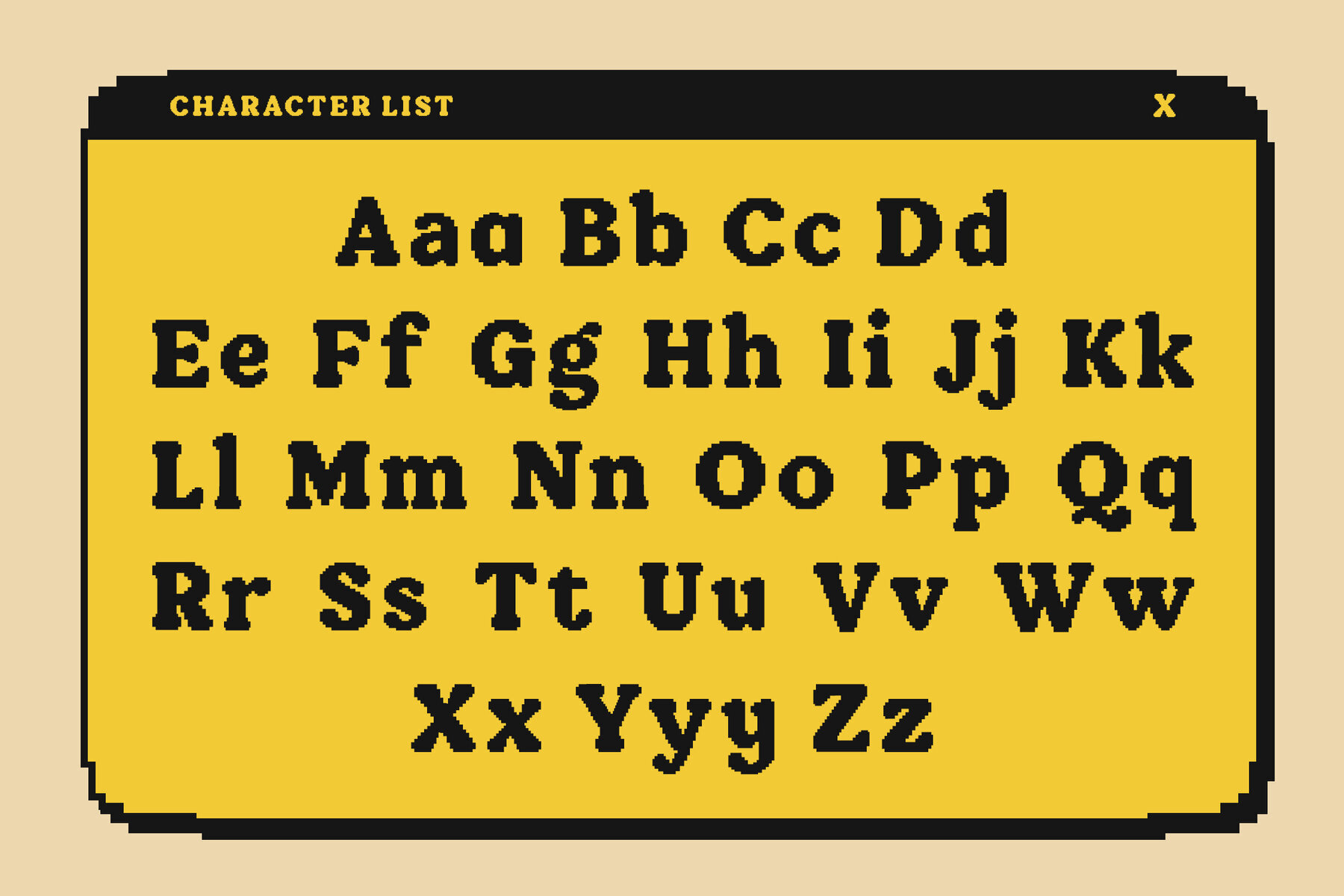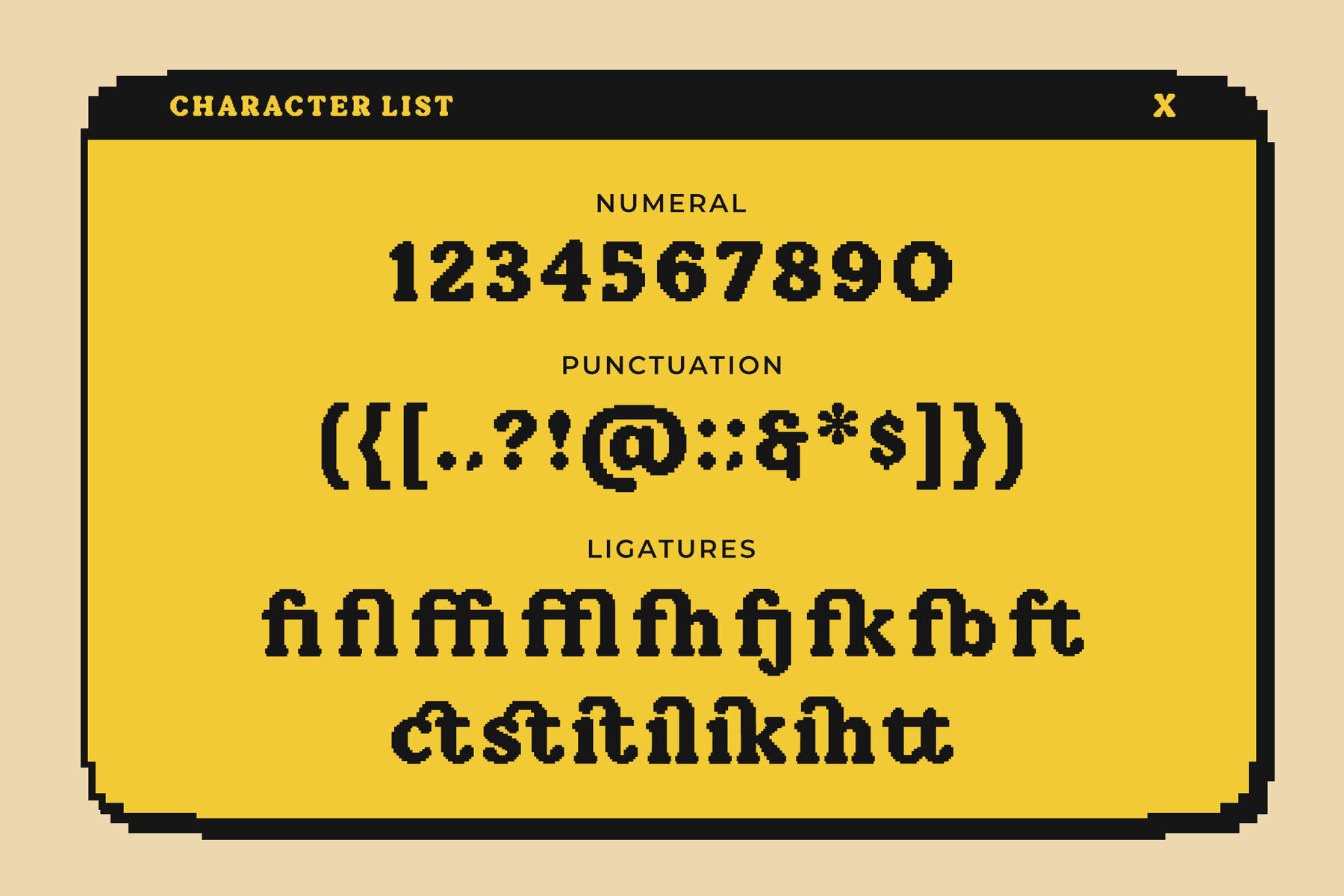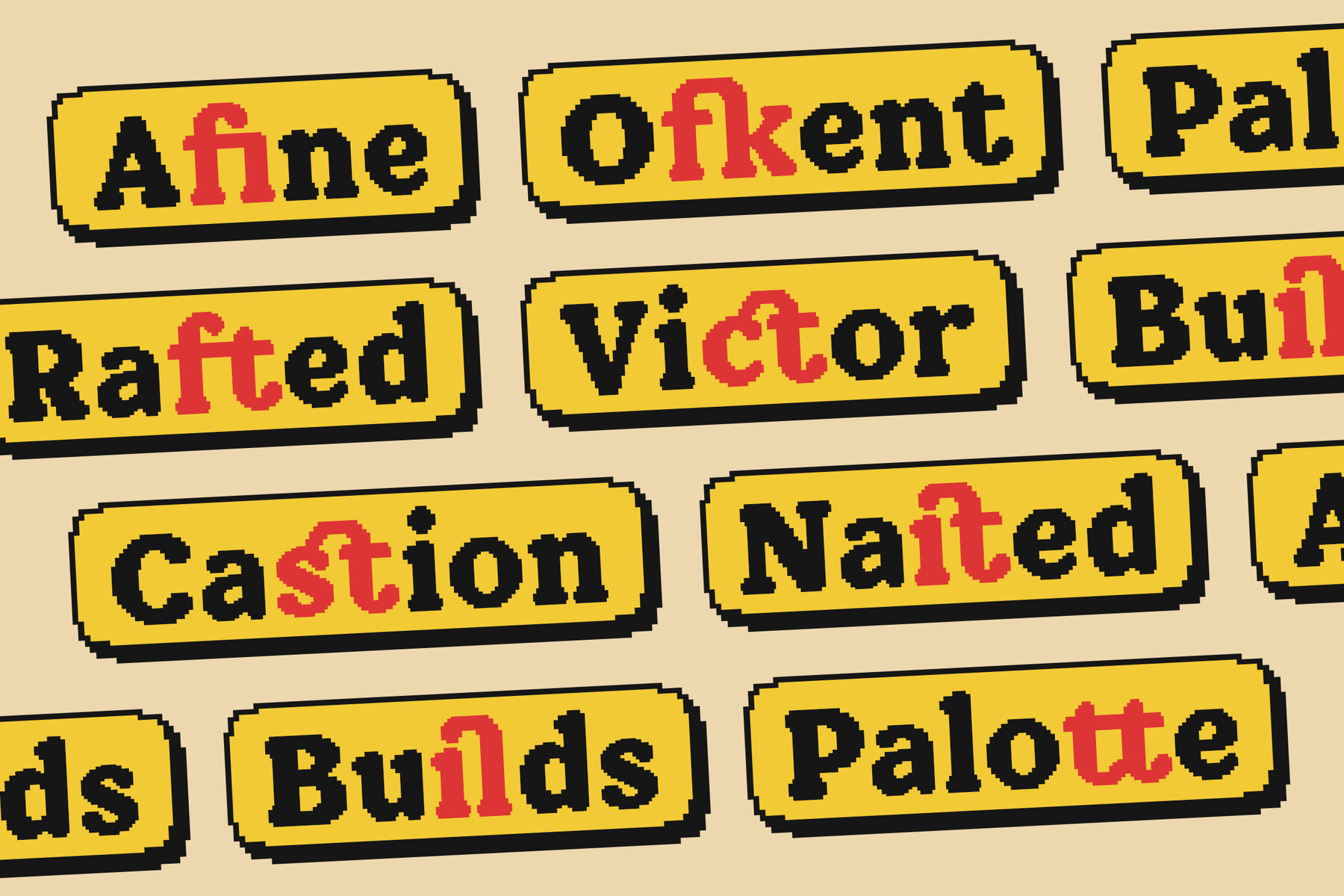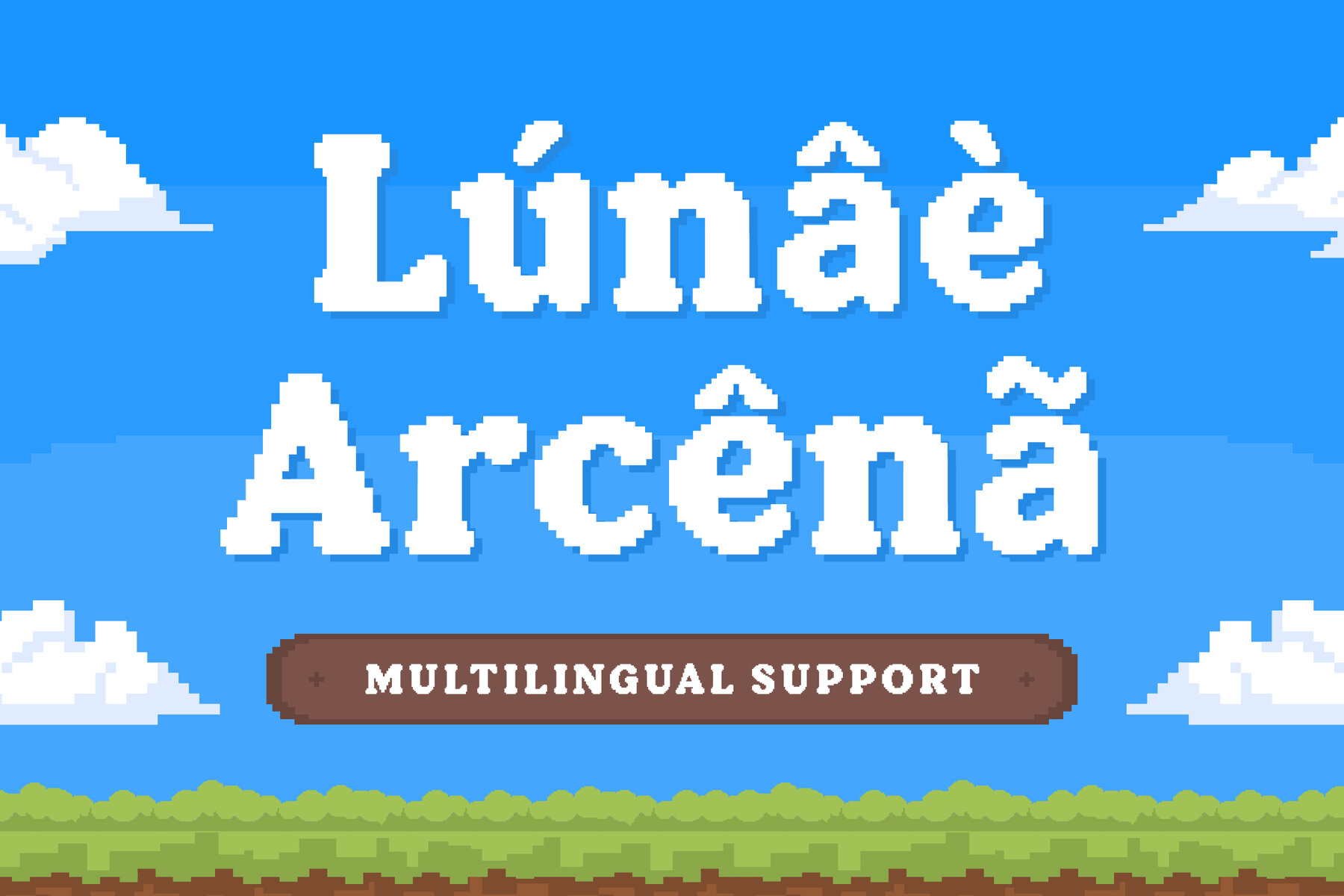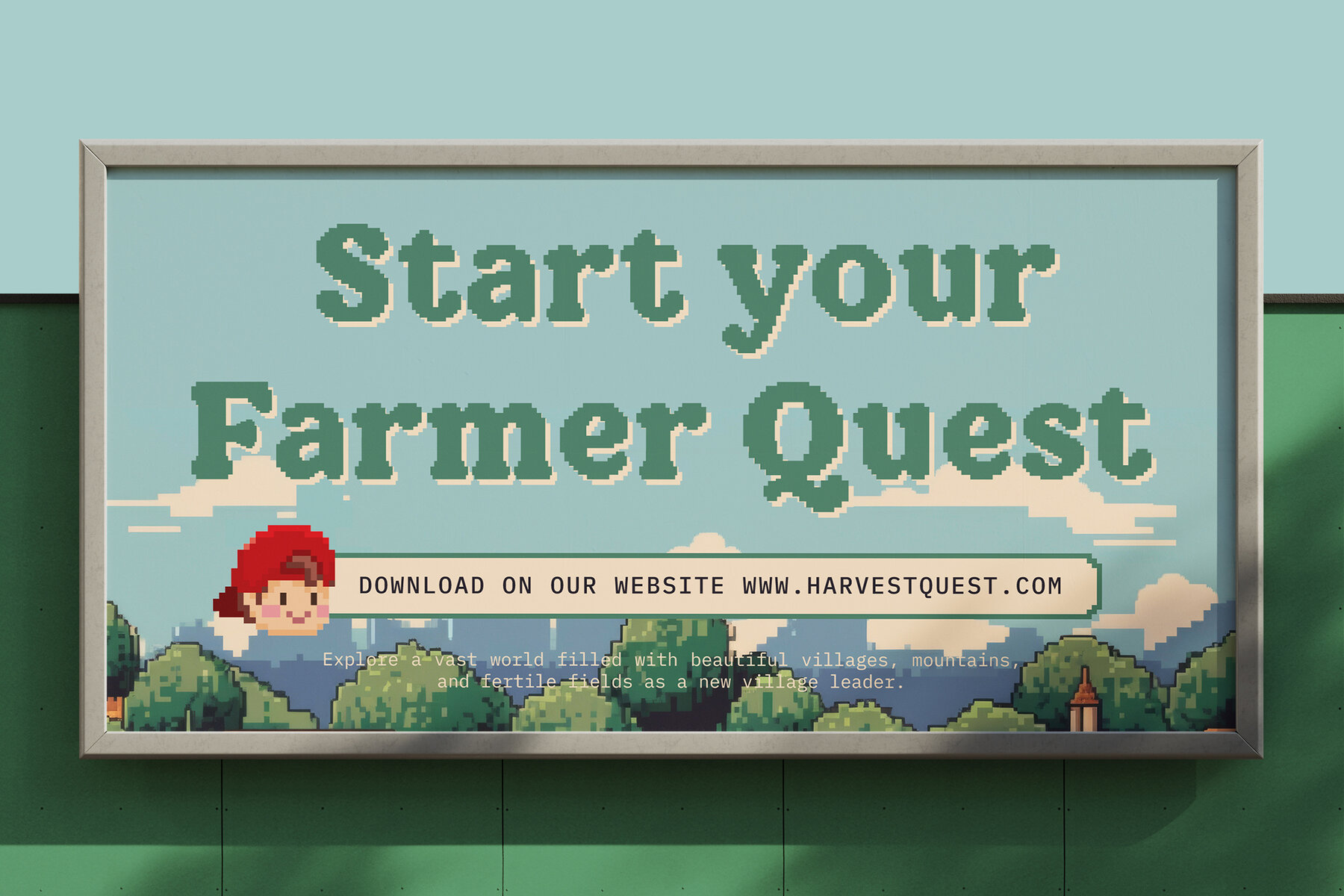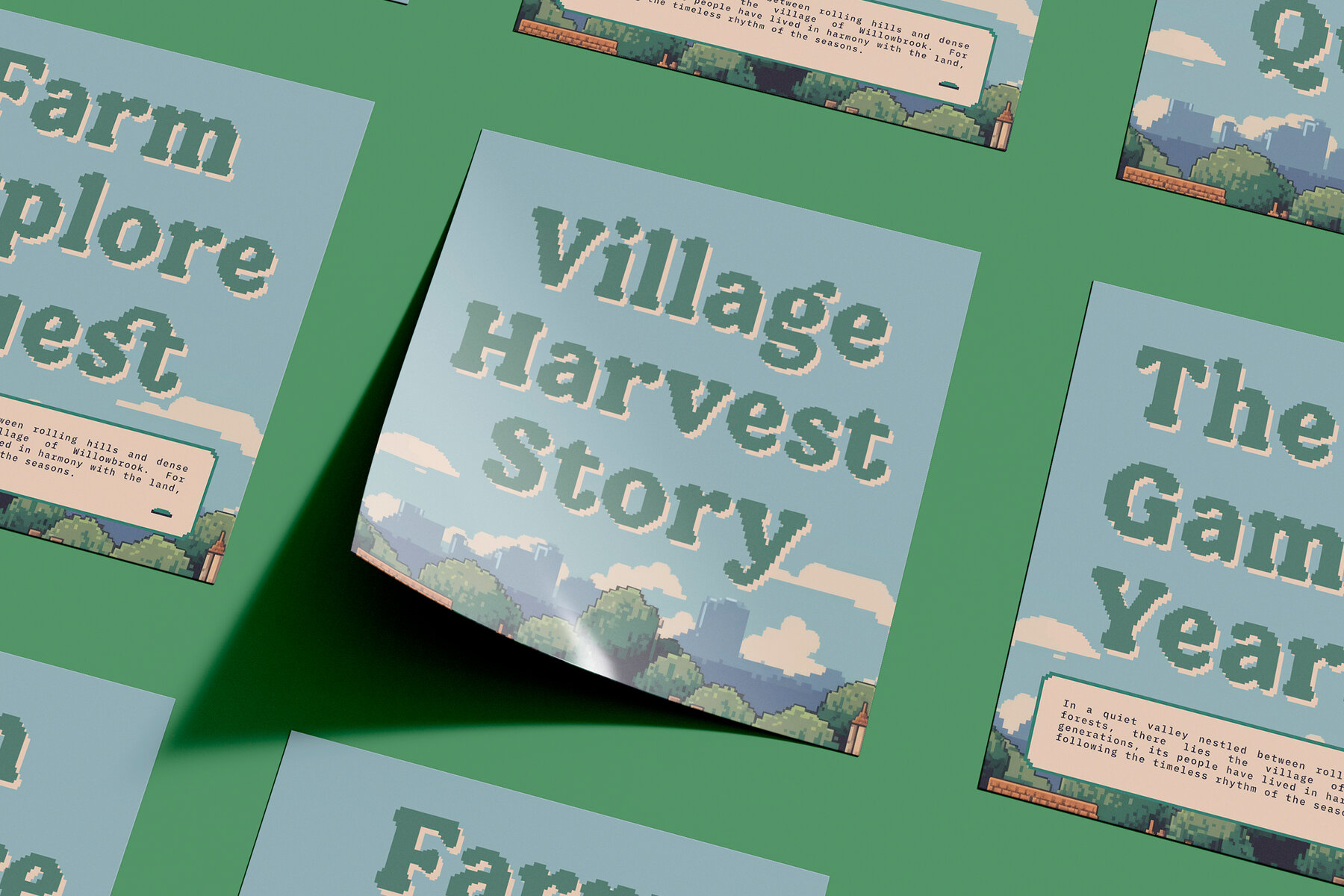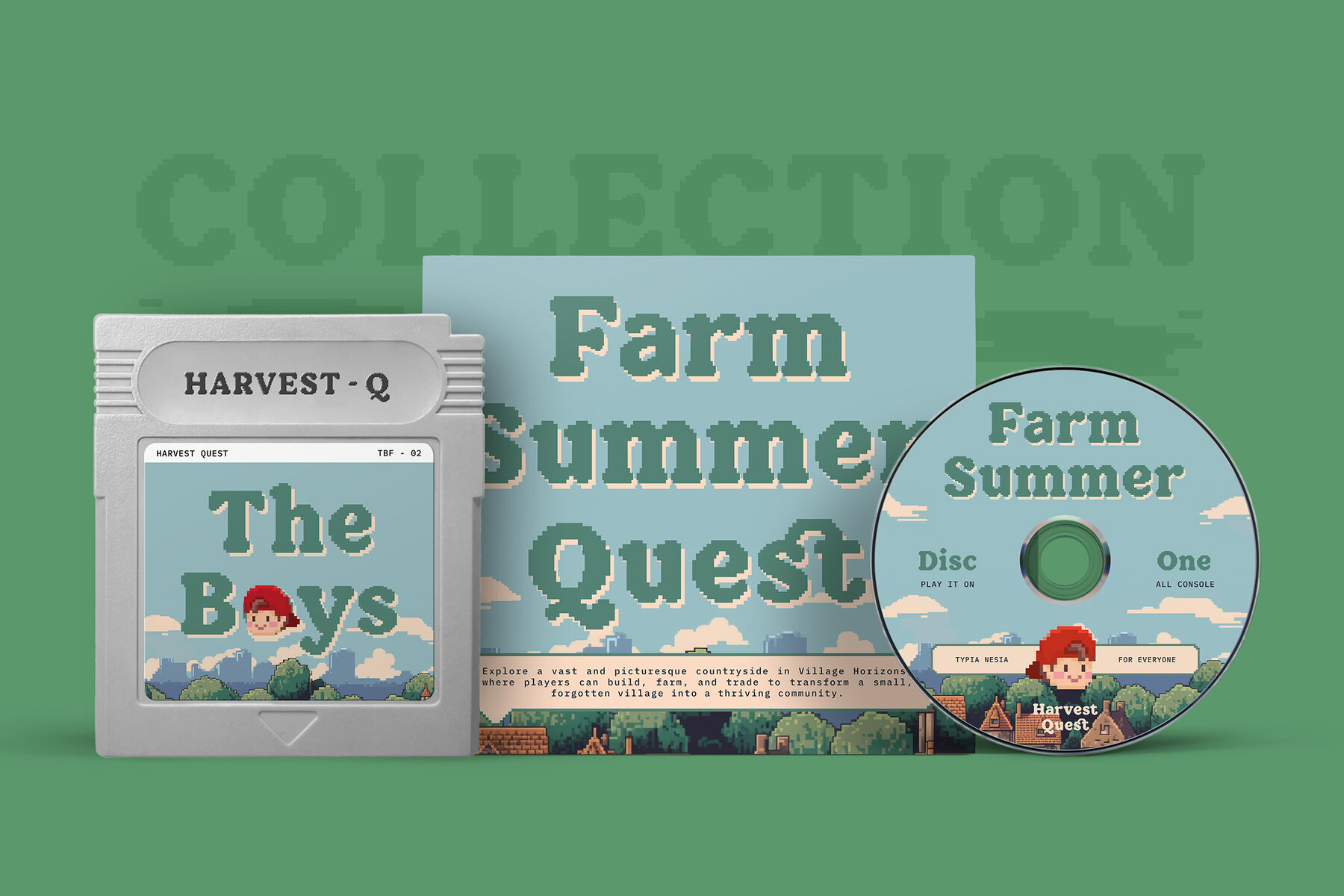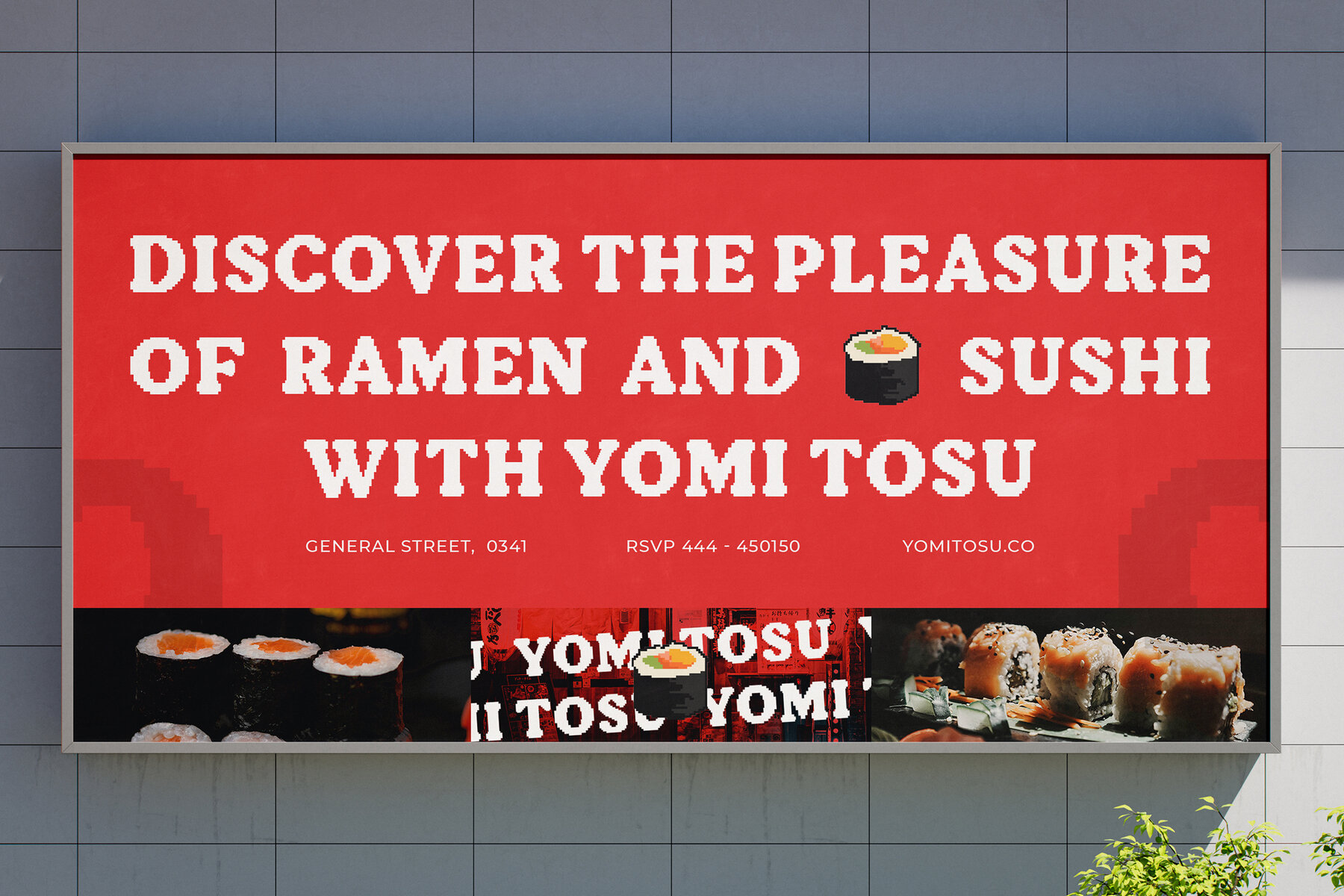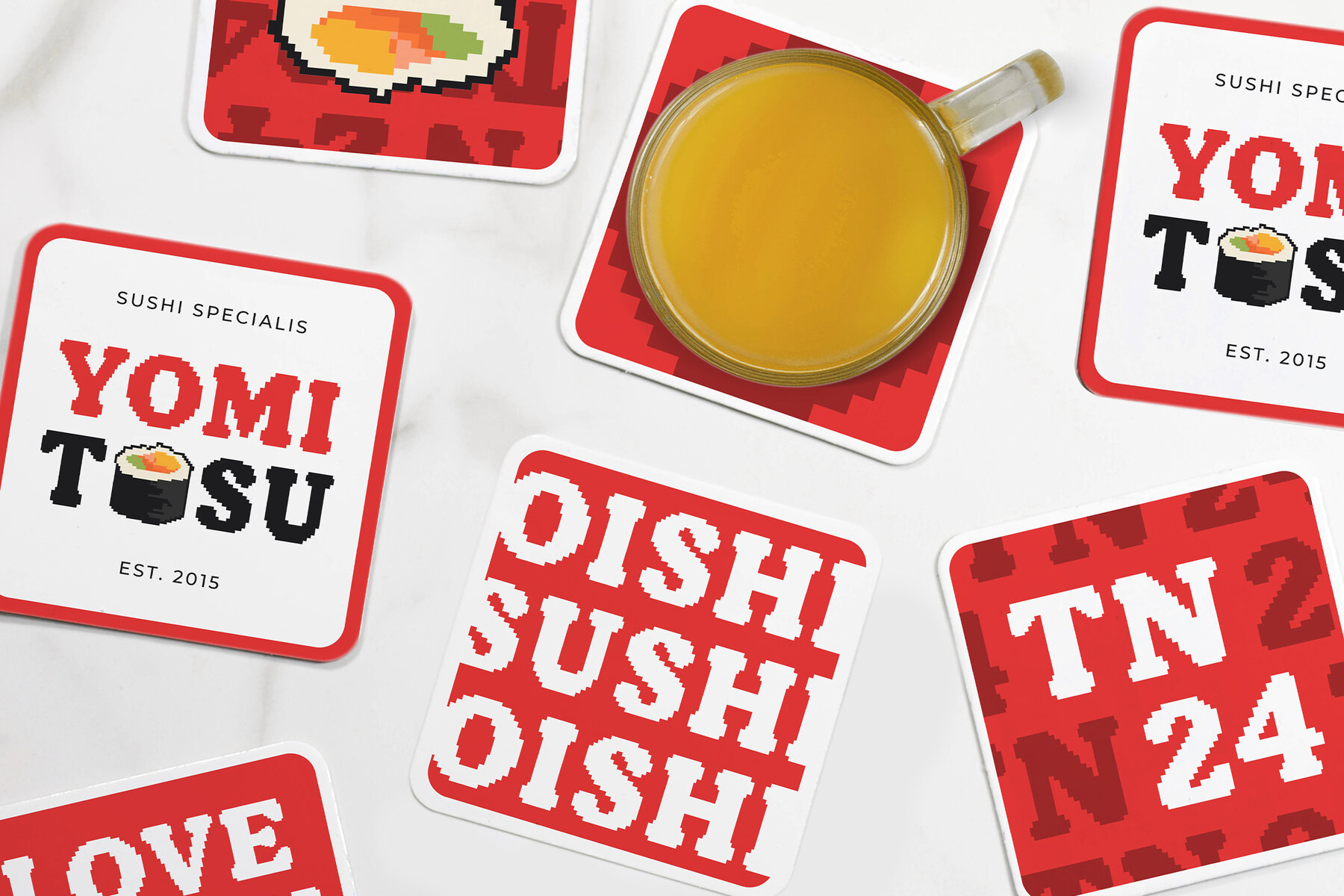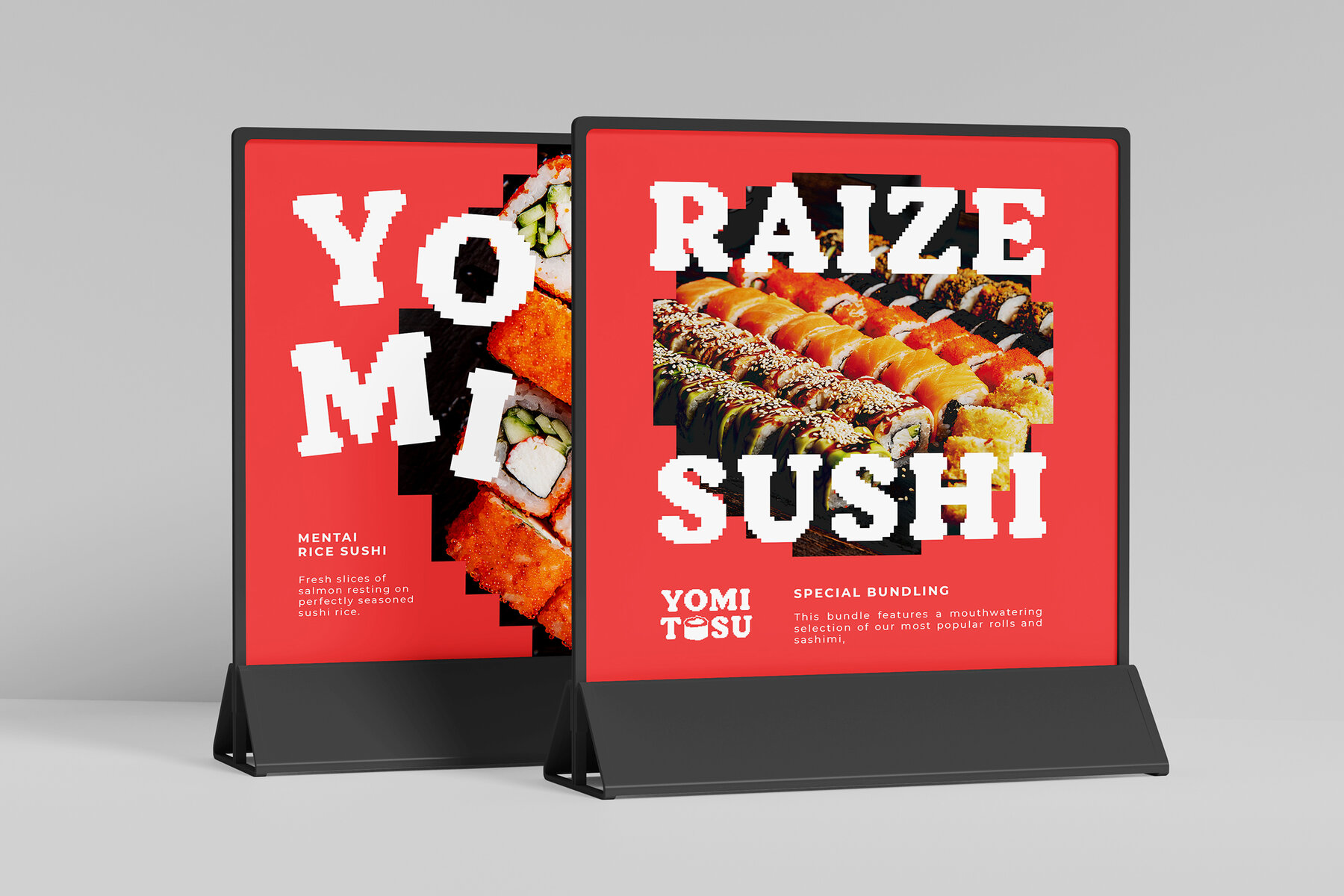
Game Quotes Font
Game Quotes Regular
Game Quotes is a bold serif pixelate font that masterfully blends the nostalgic aesthetics of vintage video games with contemporary bold serif typography. Its pixelated design pays homage to classic gaming while maintaining a modern and robust appeal. This font is ideal for projects requiring a retro gaming vibe, including video game titles, logos, posters, packaging, and social media graphics. It also suits modern branding and merchandise designs that seek a nostalgic yet impactful touch.
The font features uppercase and lowercase letters, punctuation, numerals, ligatures, alternates, and multilingual support, making it versatile for an array of design needs. Designed to evoke nostalgia with a bold, modern twist, Game Quotes is perfect for crafting standout designs that command attention. Enhance your project with this unique font and add a noteworthy touch that resonates with both retro and modern themes.